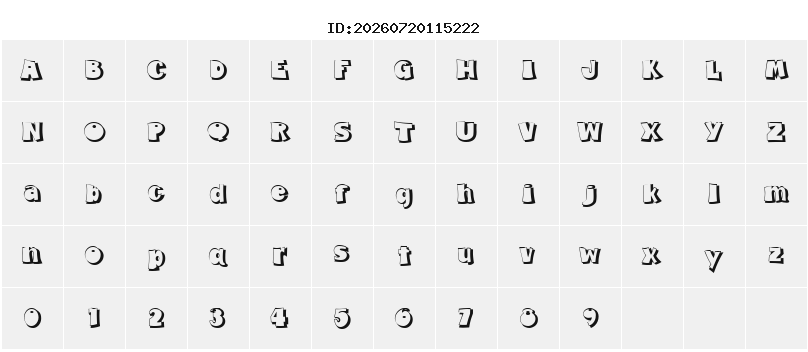
Fumo Dropshadow MN Preview
• Font Name: Fumo Dropshadow MN
• Full Font Name: Fumo Dropshadow MN
• PostScript Name: FumoDropshadowMN
About Fumo Dropshadow MN.ttf
Fumo Dropshadow MN.ttf is a modern, elegant sans-serif font designed for ultimate readability and visual harmony. Perfect for branding, headlines, web design, and print materials.